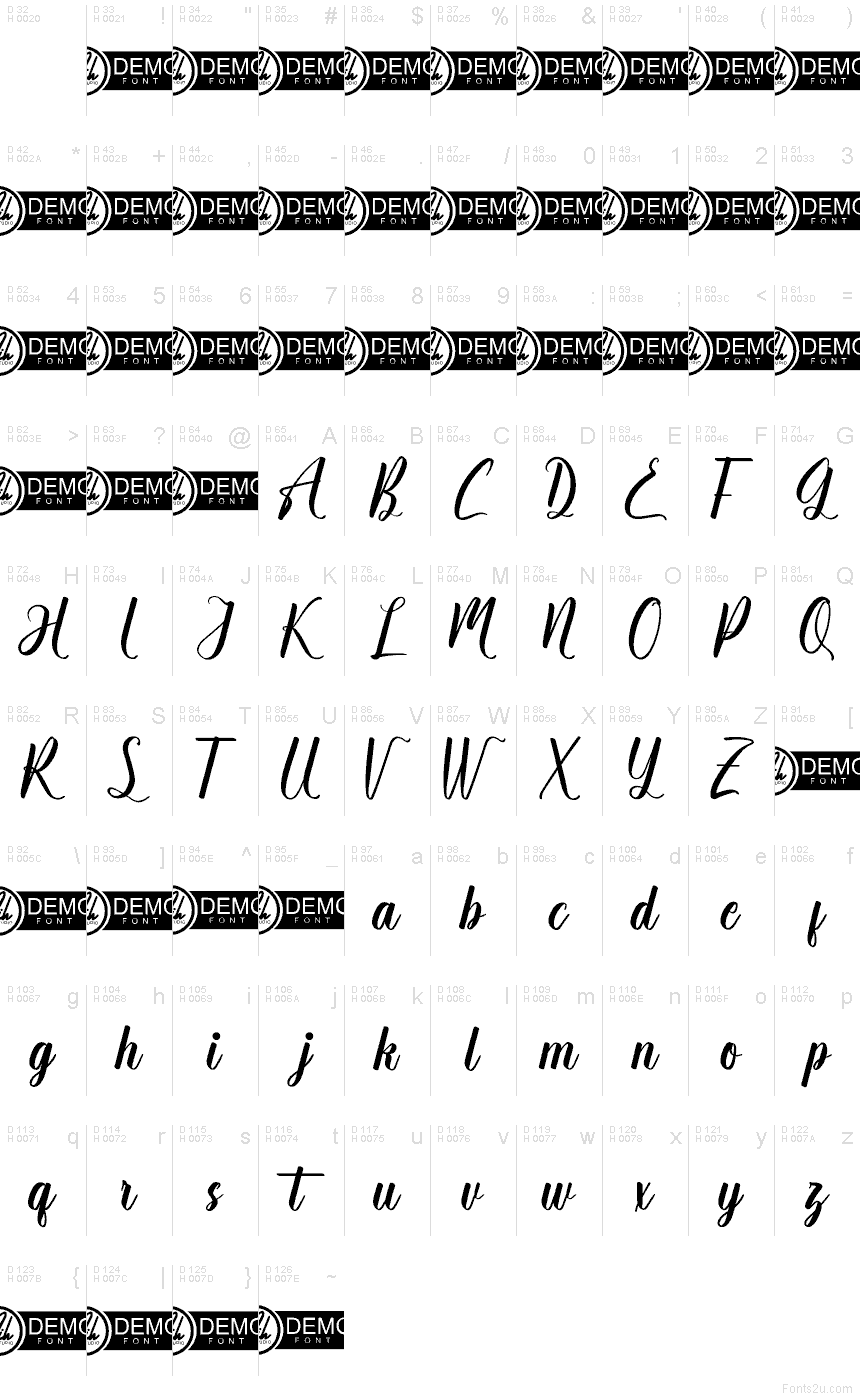
Mark Hayes Demo
Mark Hayes font by NihStudio is a free calligraphy font with a handwritten appearance and smooth flow. Its stylish presence, expressive character, and elegant script style add the modern cursive influence of the characters of this font to all the features that guarantee your one-of-a-kind designs.